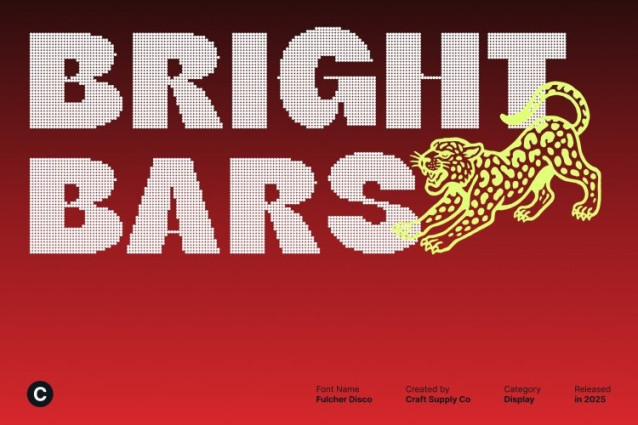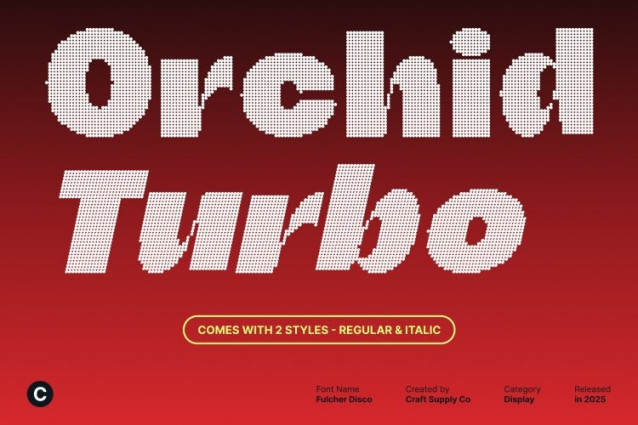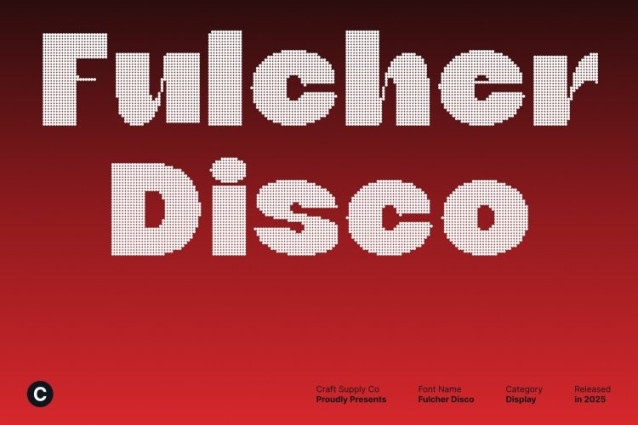
Fulcher Disco Font
Fulcher Disco Font This is a bold display sans serif created to command attention the moment it appears on the page. With strong shapes, confident proportions, and a clean modern build, this typeface delivers undeniable power. Its bold structure makes every headline, title, and graphic instantly readable and visually compelling.
Glamorous Disco Sparkle for a Radiant Look
A signature disco sparkle overlay elevates this font with shimmering style and vibrant flair. The reflective texture adds a touch of glamour reminiscent of dazzling lights, dance floors, and retro-futuristic nightlife. This sparkling layer transforms simple text into a glowing centerpiece, perfect for designs that want to shine with personality.
Ideal for Headlines, Branding, and Editorial Design
Engineered for display performance, this font excels in bold headlines, dynamic branding, striking posters, and high-fashion editorials. Its mix of heavy sans serif strength and shimmering detail makes it especially effective for lifestyle brands, party promotions, magazine layouts, and modern advertising concepts. Anywhere you need a dramatic focal point, this font delivers.
A Versatile Typeface with Dazzling Attitude
Despite its bold and decorative flair, this font remains versatile and highly usable across various visual applications. The combination of sturdy letterforms and a radiant overlay gives designers the freedom to craft eye-catching compositions that feel modern, glamorous, and full of energy.